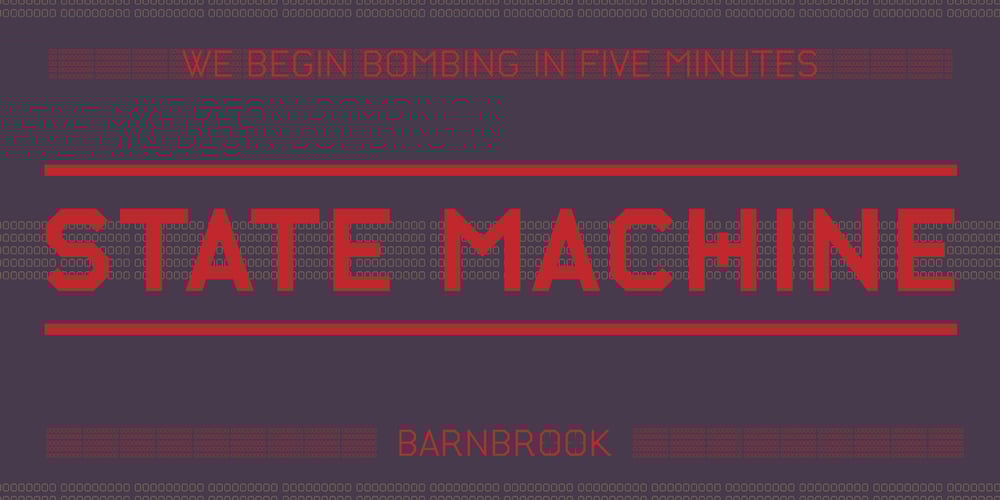
State Machine
State Machine font
State Machine Font Family was designed by Marcus Leis Allion, Jonathan Barnbrook and published by Barnbrook Fonts. State Machine contains 4 styles and family package options. State Machine is a display typeface inspired by lettering applied to American and Russian Cold War-era military vehicles. It also features an alternate character set inspired by 1970s hand-made political banners. The name State Machine is a term found in both political theory and computer programming. The theoretical definition describes the political and bureaucratic organisation of a state as well as the repressive state apparatuses such as the military and police. Max Weber describes the state as “a human community that (successfully) claims the monopoly of the legitimate use of physical force within a given territory”. In computer programming, a state machine is a mathematical model of computation used to design computer programs. It is conceived as an abstract machine that is in one of a finite number of states. It can change from one state to another when initiated by a triggering event or condition. Taken at a wider conceptual level, when these two definition are combined the meaning becomes analogous to a tool (such as a philosophical idea) with which to transform a society.